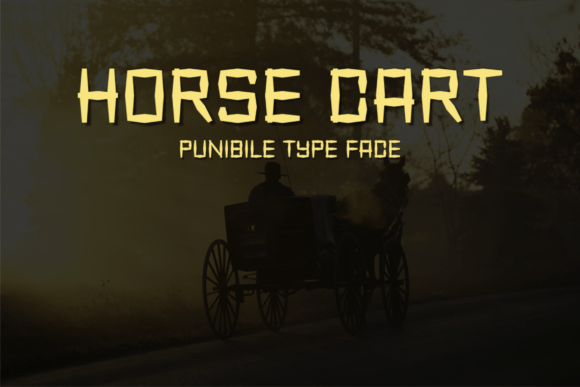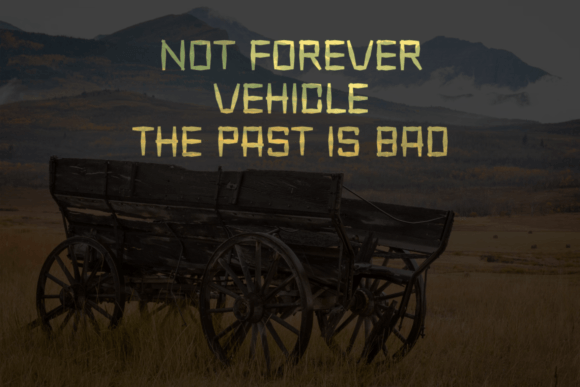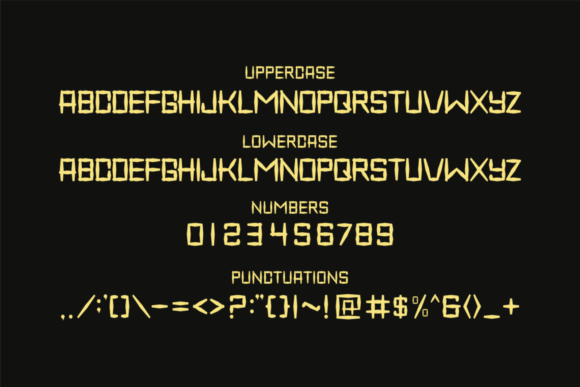
Introduction to Punibile Font
Punible is a modern display font with a slim and authentic look.
It is suitable for branding projects such as logos, T-shirt printing, Esports, and many more Add it to your fonts library, and it will become an instant favorite.
Key Features of Punibile Font
Why Choose Punibile Font?